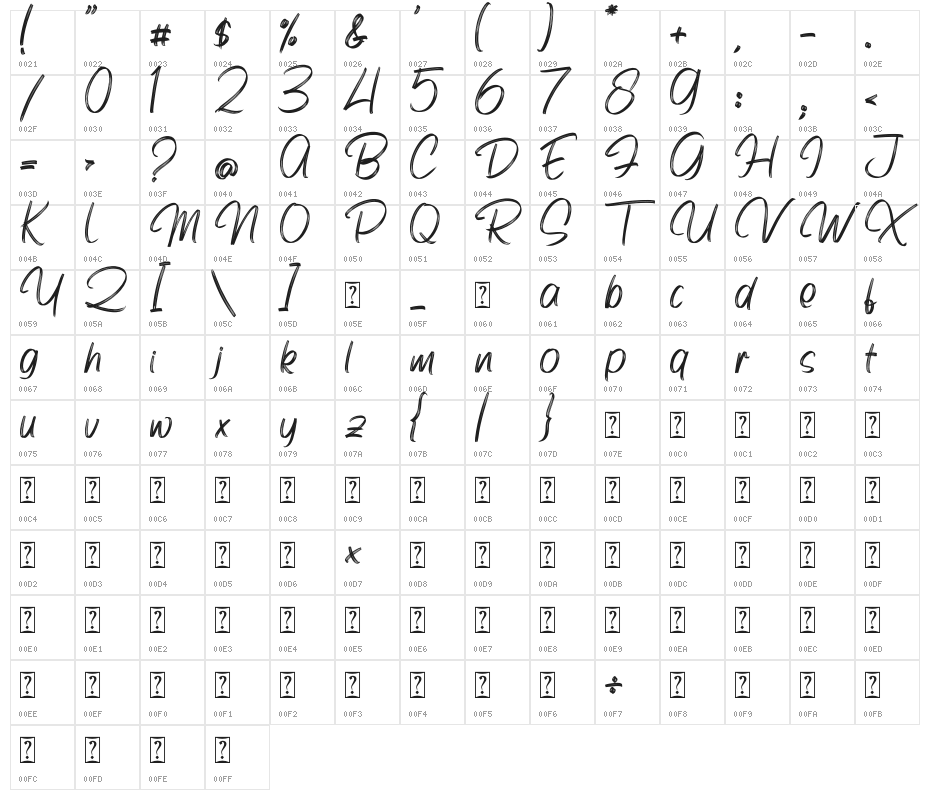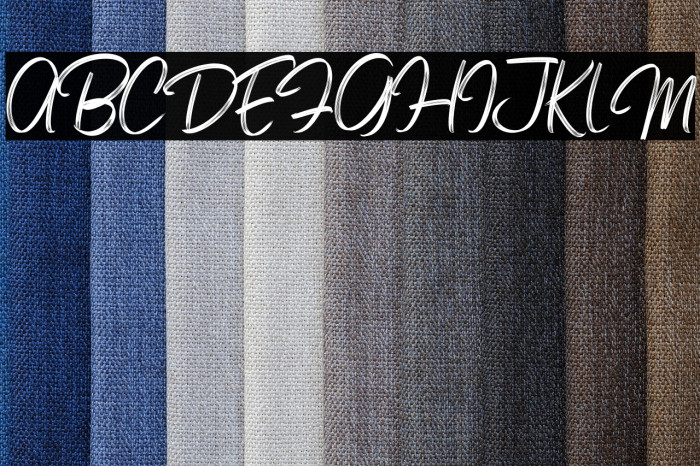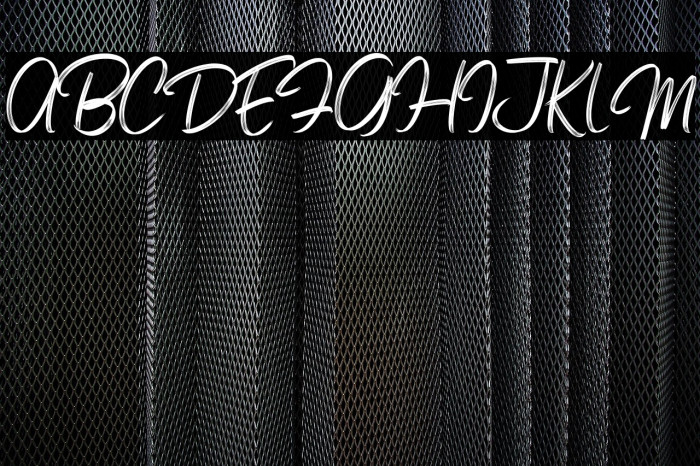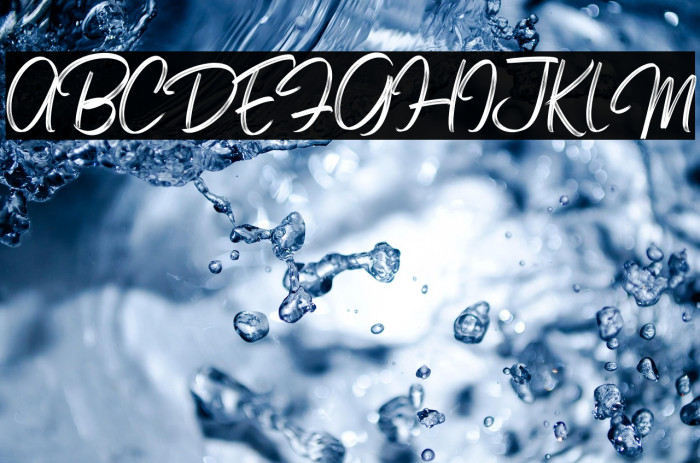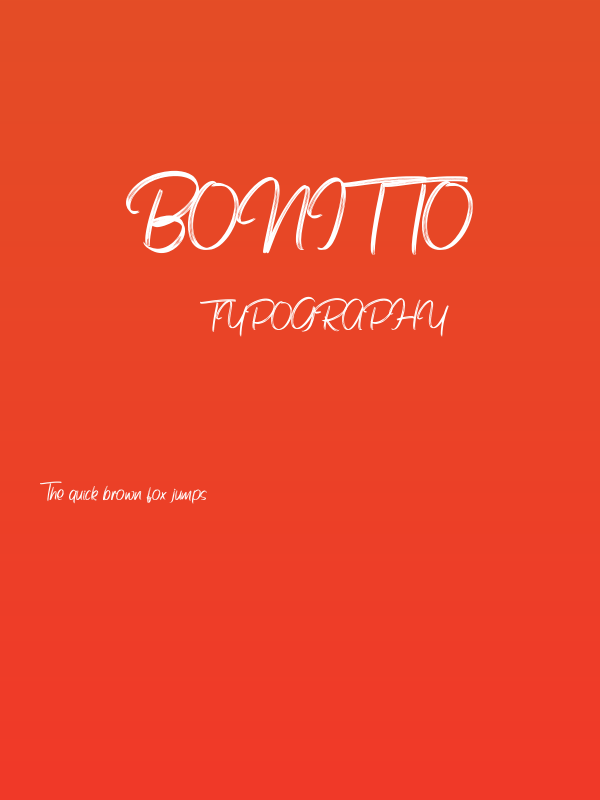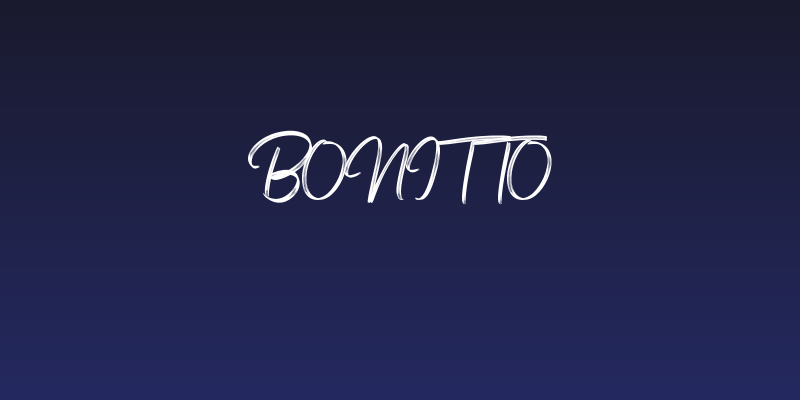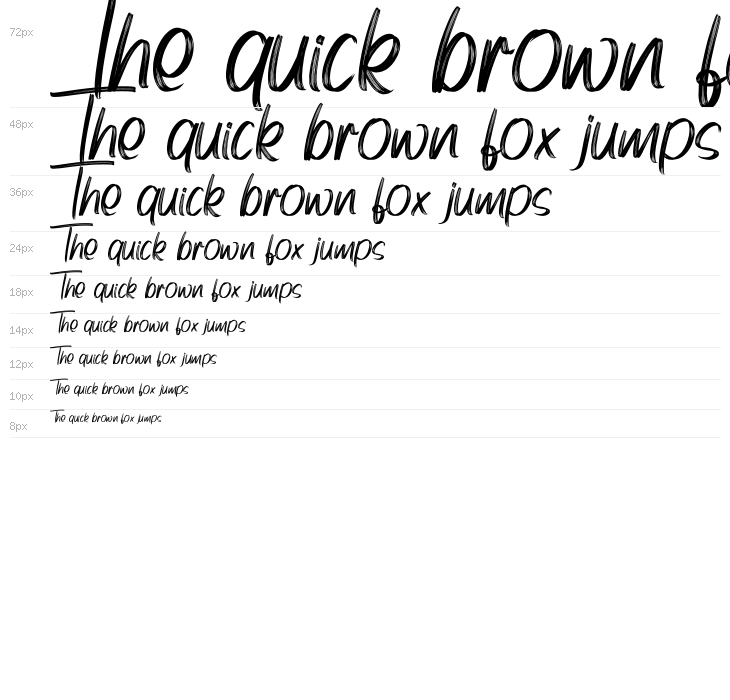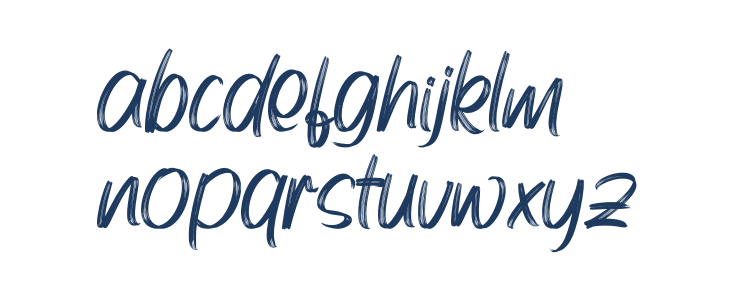
Bonitto Font
Bonitto Description
This font features a dynamic and expressive handwritten style, characterized by its fluid strokes and energetic appearance. The uppercase letters exhibit a consistent slant, adding a sense of motion and elegance. The lowercase letters maintain a similar style, with some letters like 'g' and 'y' having distinctive loops that enhance the font's playful nature. The numerals are bold and maintain the same lively aesthetic, making them stand out. Special characters are creatively integrated, maintaining the overall handwritten theme. This font's brush-like texture gives it a unique, artistic flair, making it suitable for creative projects.
| Use Case | Logos, Headlines, Artistic projects |
| Proposed Projects | Ideal for branding, invitations, greeting cards, and artistic posters. |